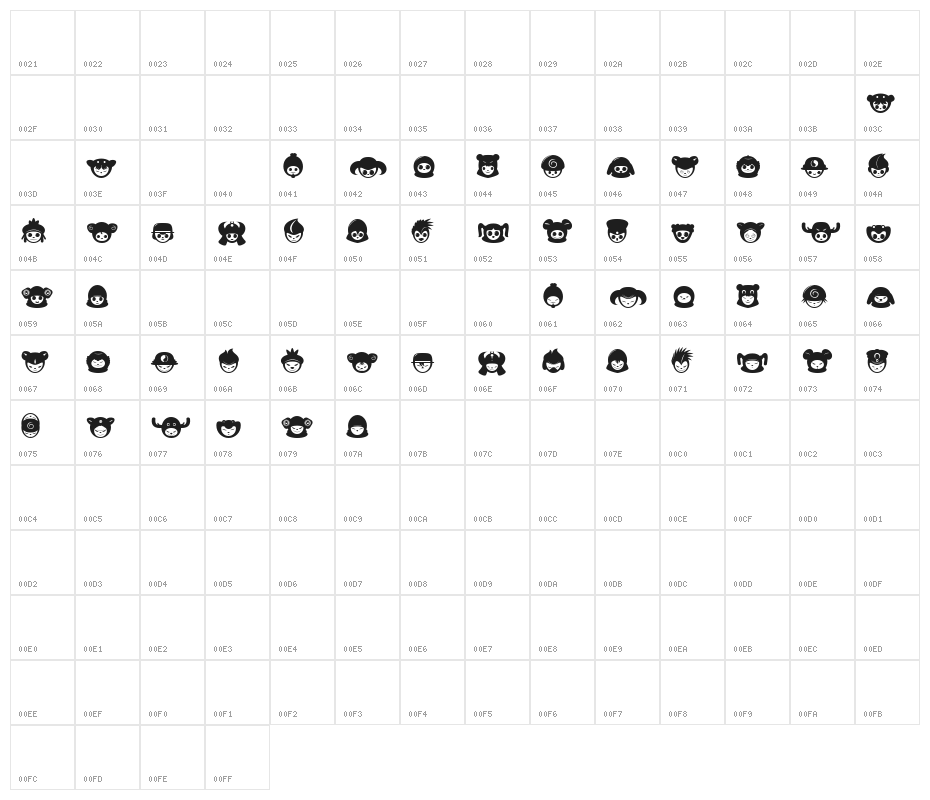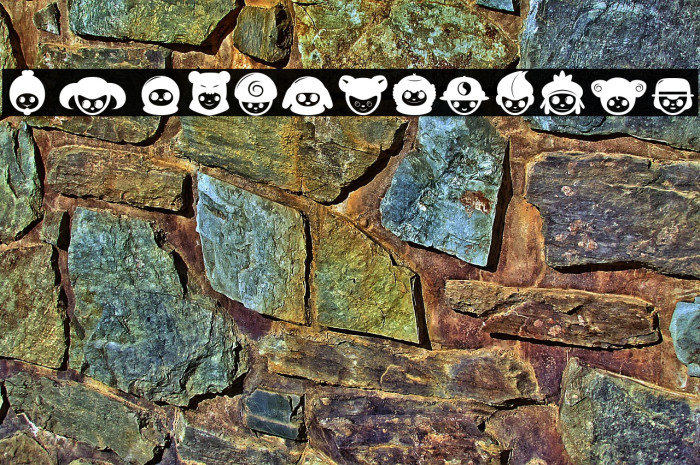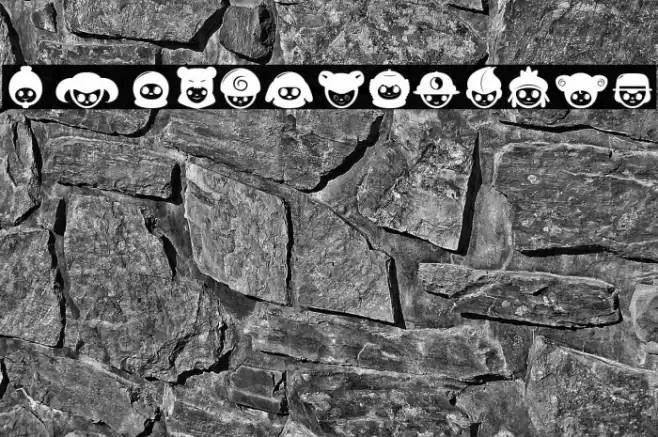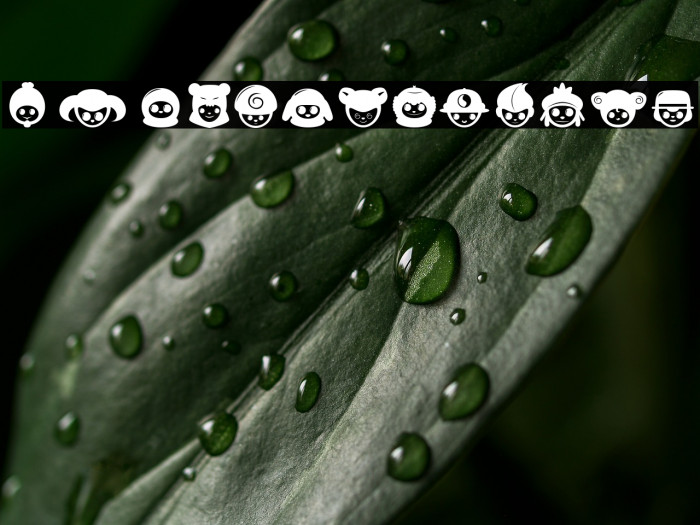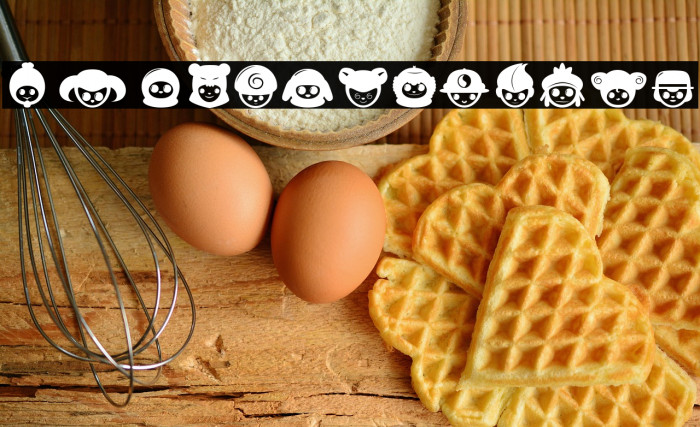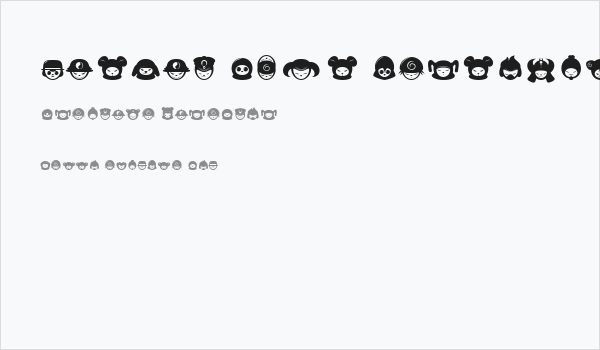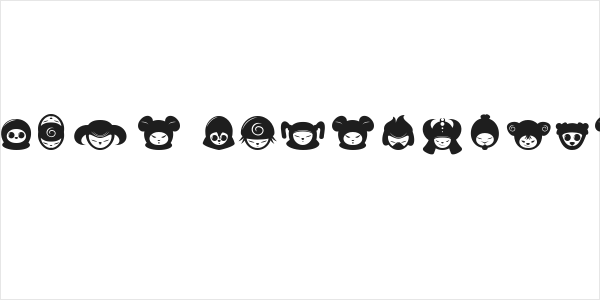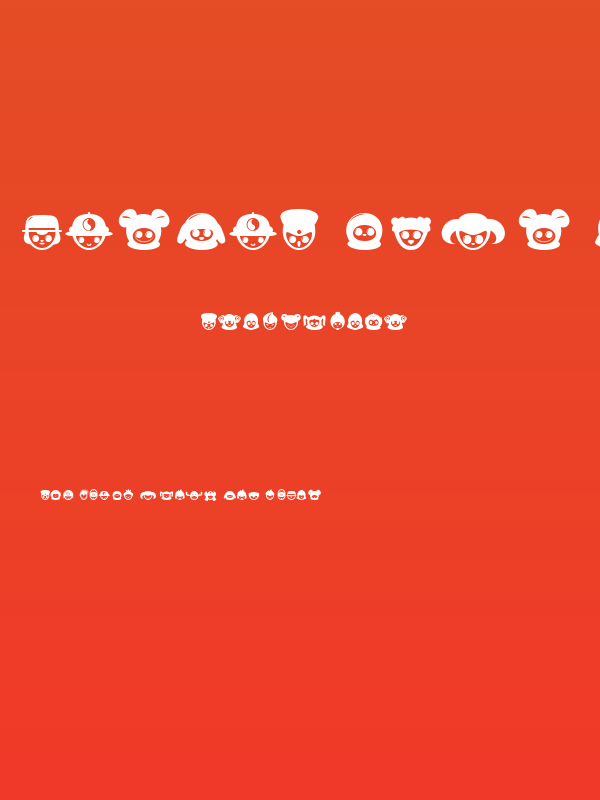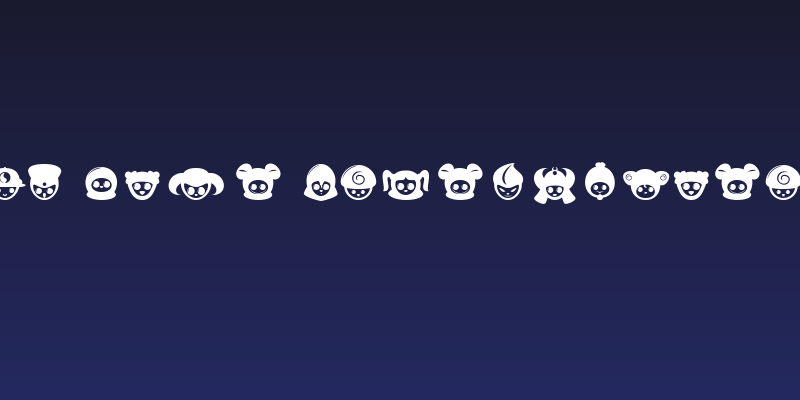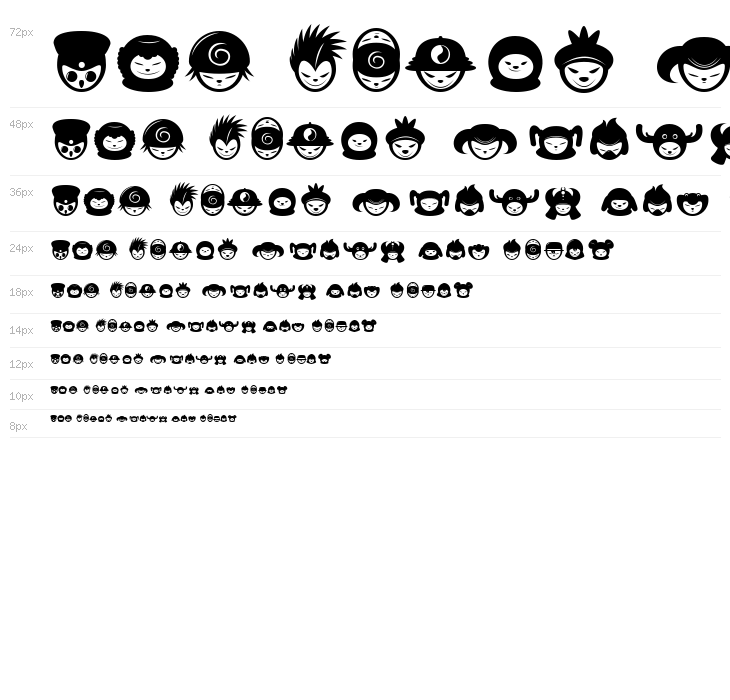
Misfit Cubs_PersonalUseOnly Font
Misfit Cubs_PersonalUseOnly Description
A playful and whimsical dingbat font featuring a variety of cartoonish animal and character faces, each with unique expressions and headgear, rendered in bold, solid black shapes with rounded and exaggerated features.
| Overall Style | Playful, Whimsical, Decorative |
| Use Case | Icons, Decorative elements, Themed graphics |
| Proposed Projects | ChildrenΓ’β¬β’s books, party invitations, stickers, scrapbooking, playful branding, educational materials. |